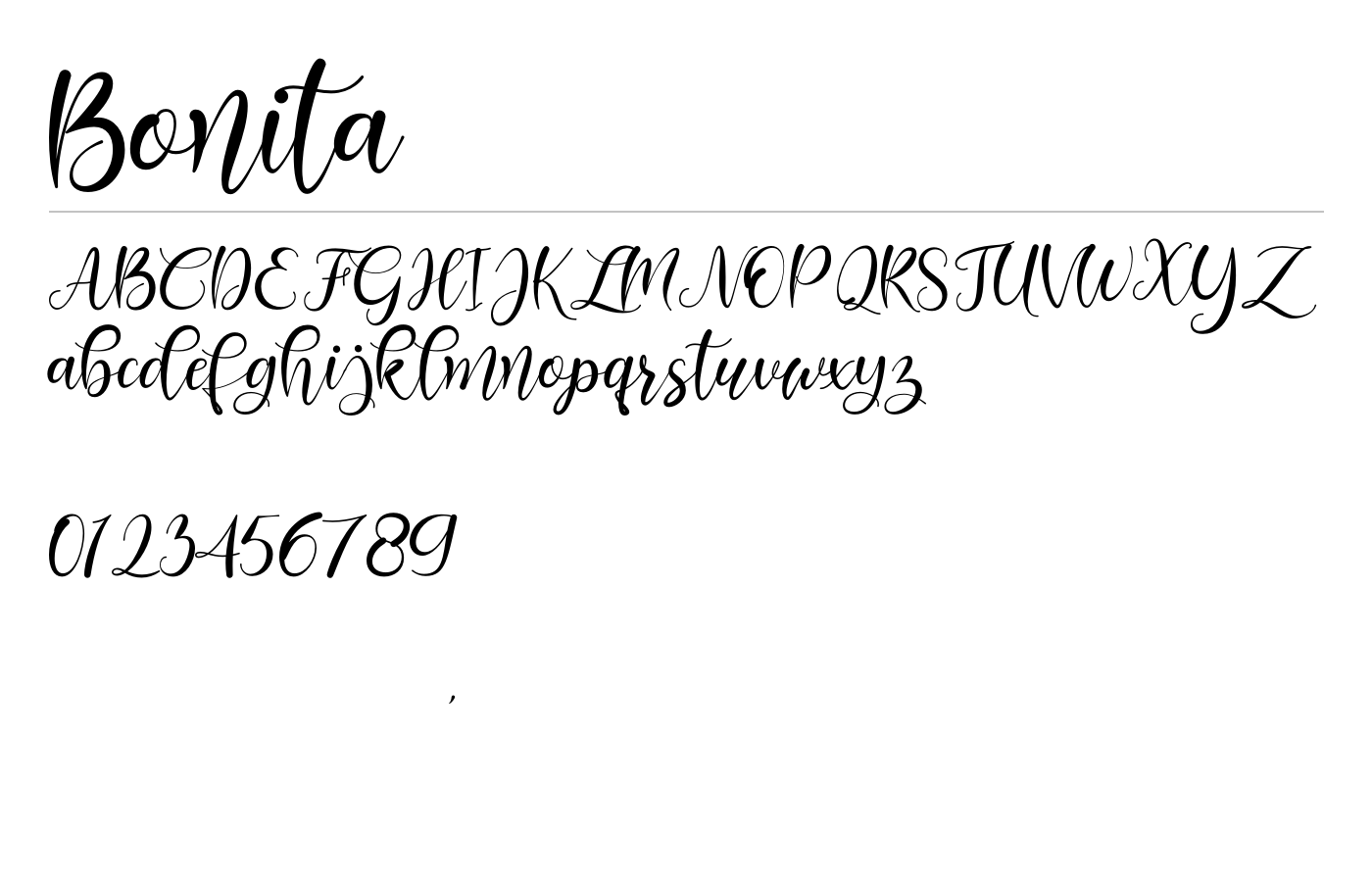
Bonita is an elegant script font featuring smooth, flowing strokes with graceful swashes that give it a sophisticated yet approachable feel. Its moderately high contrast and fluid letterforms make it perfect for invitations, branding, and creative projects that require a touch of charm and personality. This font shines in headlines and decorative text where its stylish flair can stand out beautifully.
Bonita Font
About Bonita Font
| Font family | Bonita Font |
| Designer | Bluestudio / Winarno |